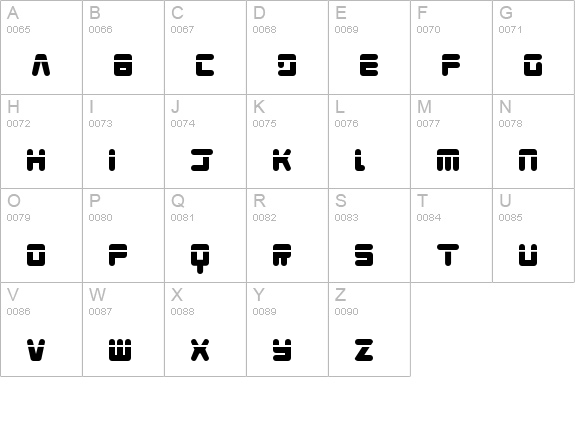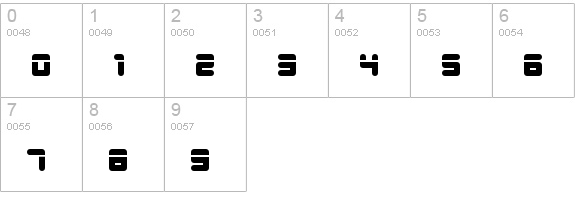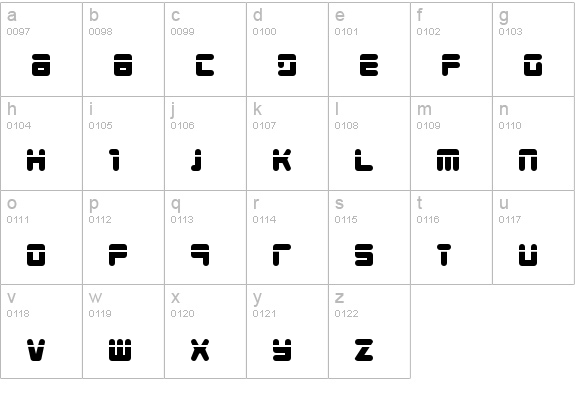
Young Techs Laser Font Details
Young Techs Laser font is a sleek and futuristic typeface that exudes a sense of modernity and innovation. Its sharp lines and laser-like precision make it perfect for tech-related projects, sci-fi designs, and cutting-edge branding. This font is ideal for conveying a sense of youthfulness and energy, making it a great choice for posters, websites, and digital content targeting a younger audience. Best of all, Young Techs Laser font is completely free to download at FontsMarket.com. With its bold and dynamic appearance, this font is sure to make a statement and add a touch of high-tech flair to any design project. Download Young Techs Laser font today and elevate your creations with a touch of futuristic style.